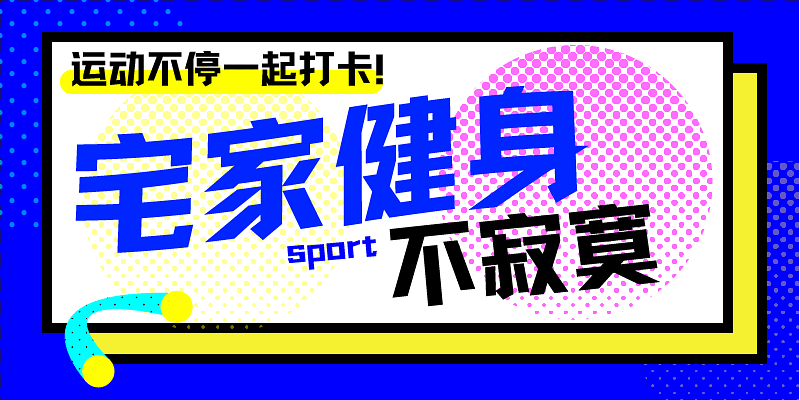
HelloFont ID Jue Jiang Hei Font Free Download is a bold, strong Chinese-inspired typeface designed to combine traditional influences with a modern, impactful aesthetic. With its strong strokes and clear, angular forms, this font is perfect for high-visibility designs, such as posters, branding, advertising, and other creative projects where you need boldness and clarity.
The HelloFont ID Jue Jiang Hei Font offers excellent legibility while maintaining a strong, dynamic presence. It is ideal for designs that demand attention and impact while maintaining a sense of cultural depth. Whether used for product branding, event signage, or editorial design, this font adds a powerful visual statement.